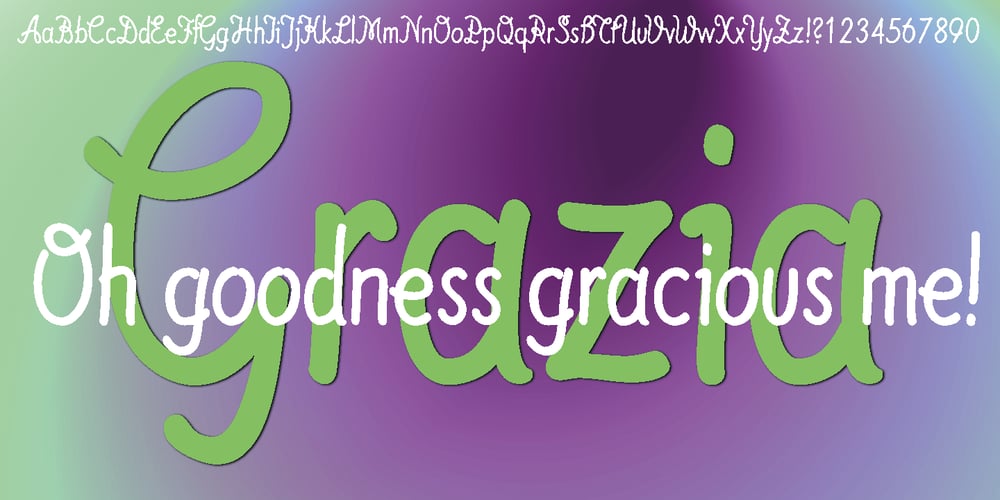
Grazia Font Family was designed by Gert Wiescher and published by Autographis. Grazia contains 1 styles and family package options. Grazia is a joining script with zero contrast. That means that I designed the line of the letters so, that they look equally thick all the time. The script is almost upright and has this 1930s look to it.